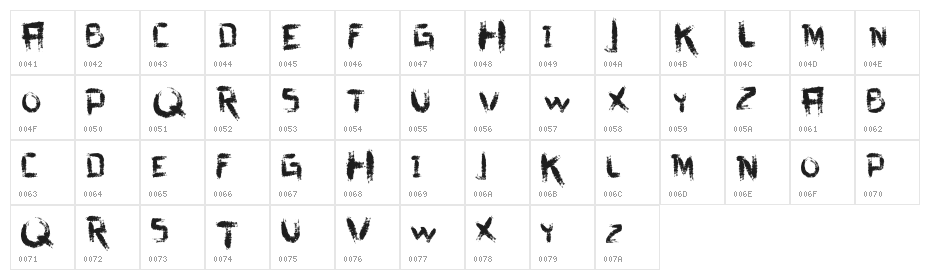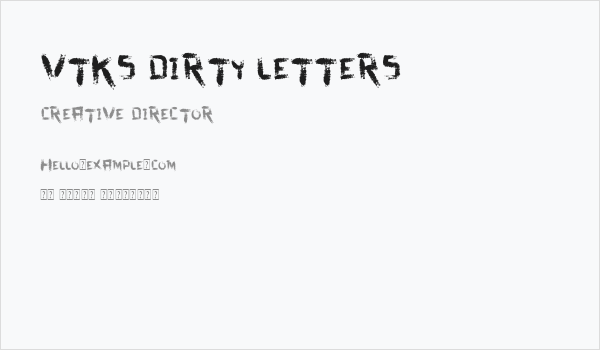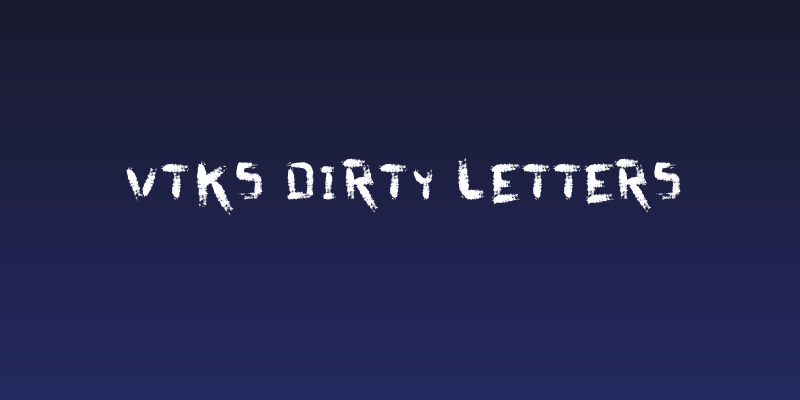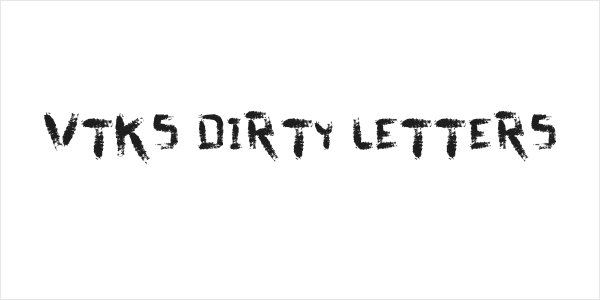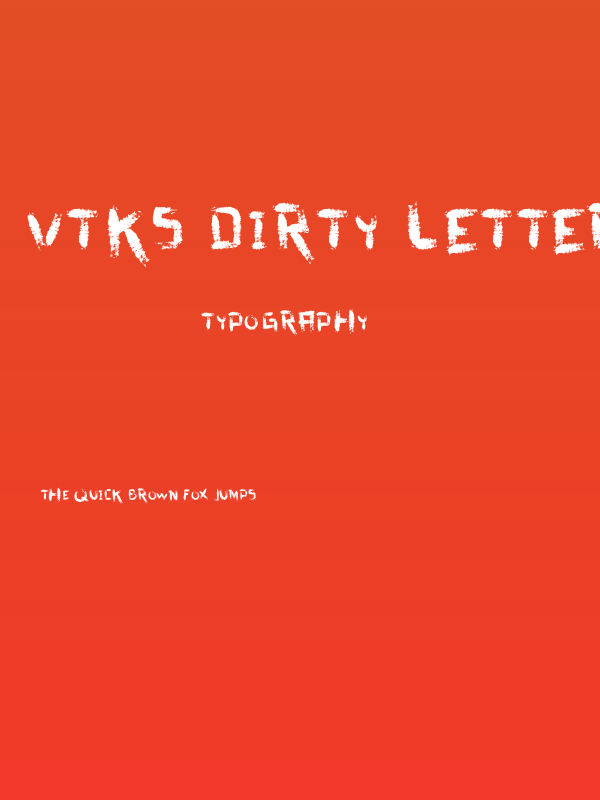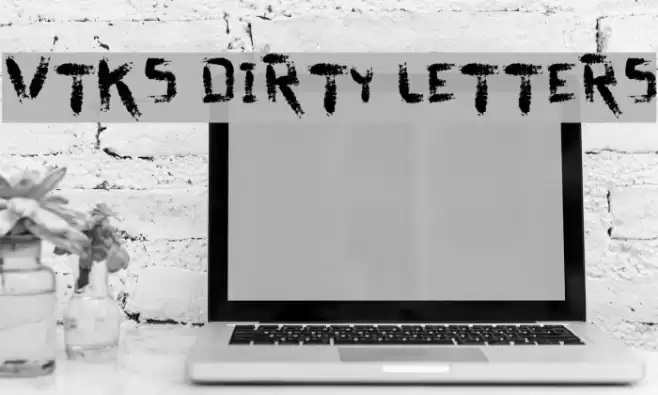
vtks dirty letters Font
This font exhibits a grungy, distressed style with rough, uneven edges that give it a raw and edgy appearance. The characters appear as if they have been painted with a dry brush, creating a textured and worn look. Each letter has a unique pattern of distress, adding to the chaotic and artistic feel of the typeface. The uppercase and lowercase letters maintain a consistent style, with the uppercase being slightly more pronounced. The font lacks uniformity in stroke width, contributing to its rugged and unrefined aesthetic. It is ideal for projects that require a bold, rebellious, or urban vibe.
| Overall Style | Grunge, Urban, Artistic |
| Use Case | Logos, Posters, Album Covers |
| Proposed Projects | Perfect for album covers, streetwear branding, graffiti art, posters, and any design needing a bold, rebellious touch. |